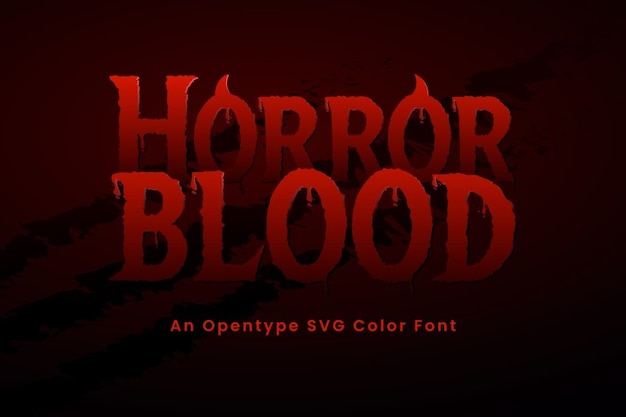
The bloodiest, scariest font you've ever seen! With a dripping red horror, it's perfect for all your Halloween nightmares and spooky shenanigans. Get ready to send chills down spines with this bone-chilling typeface. Whether you're creating creepy posters or haunted party invites, this fond will make 'em scream! So, get your scare on and let the horror begin with Horror Blood!